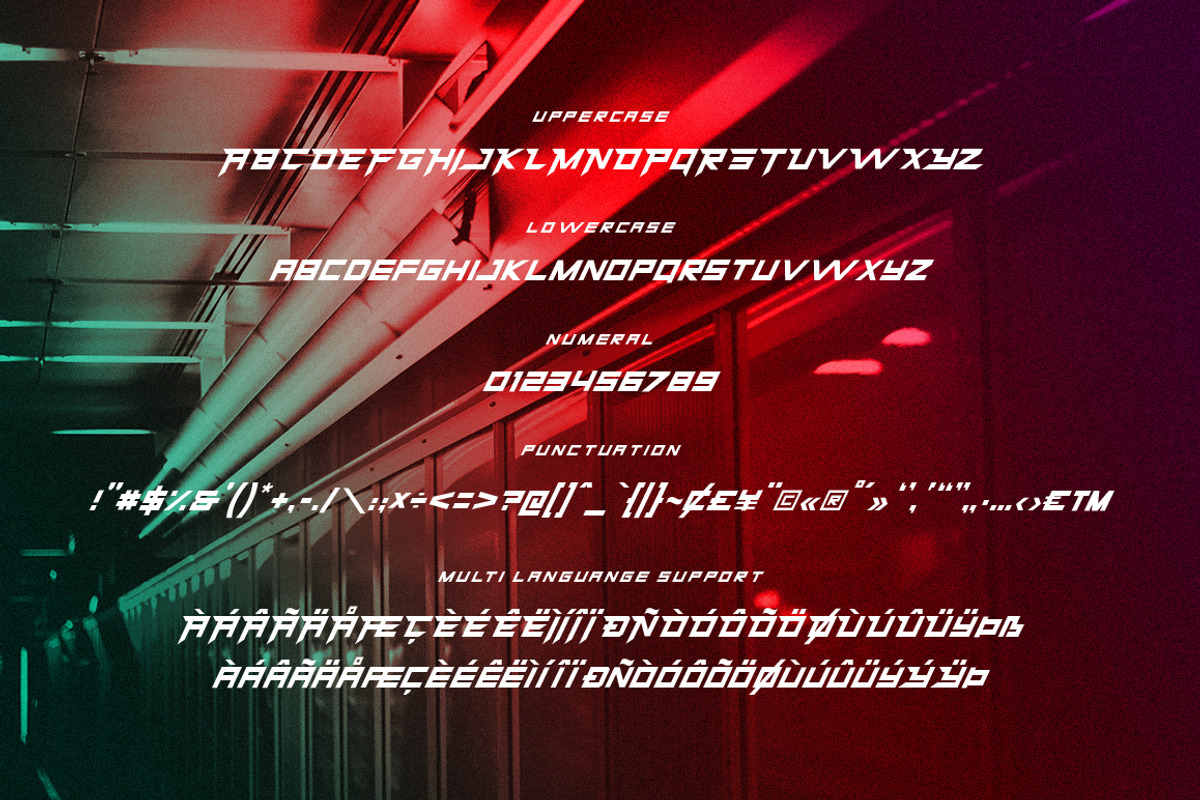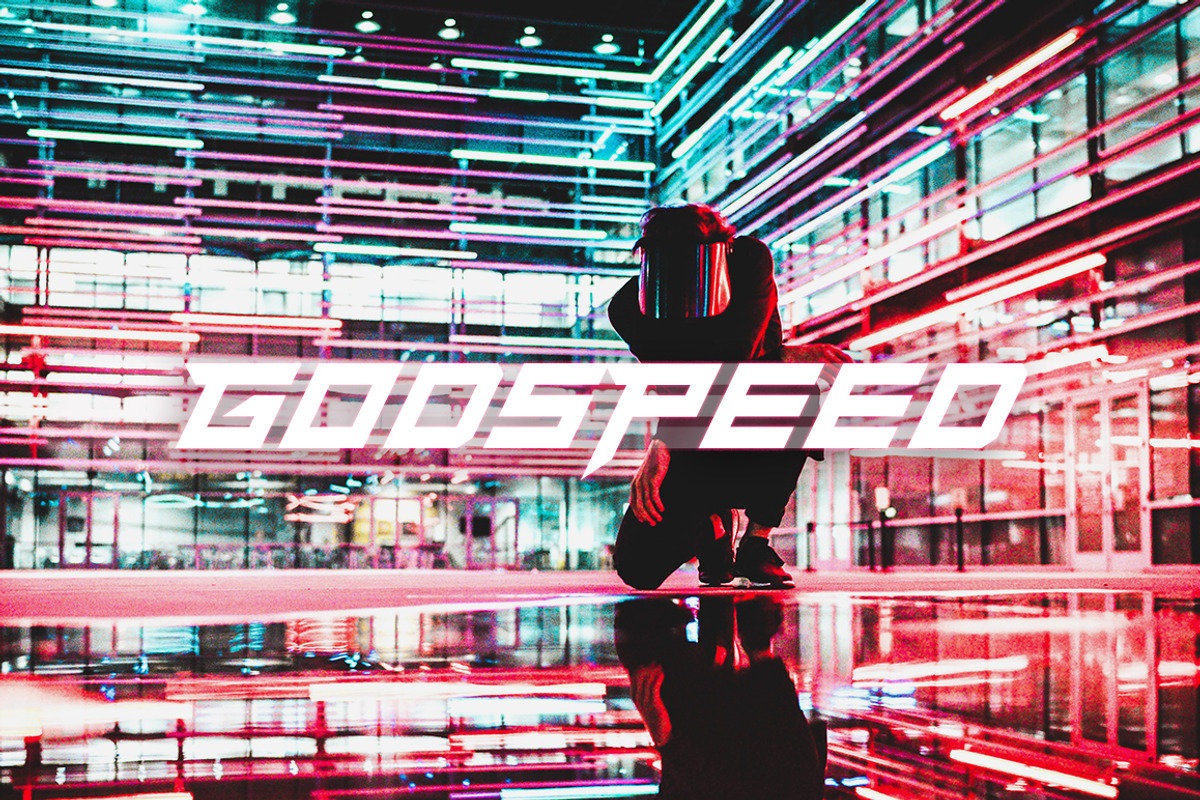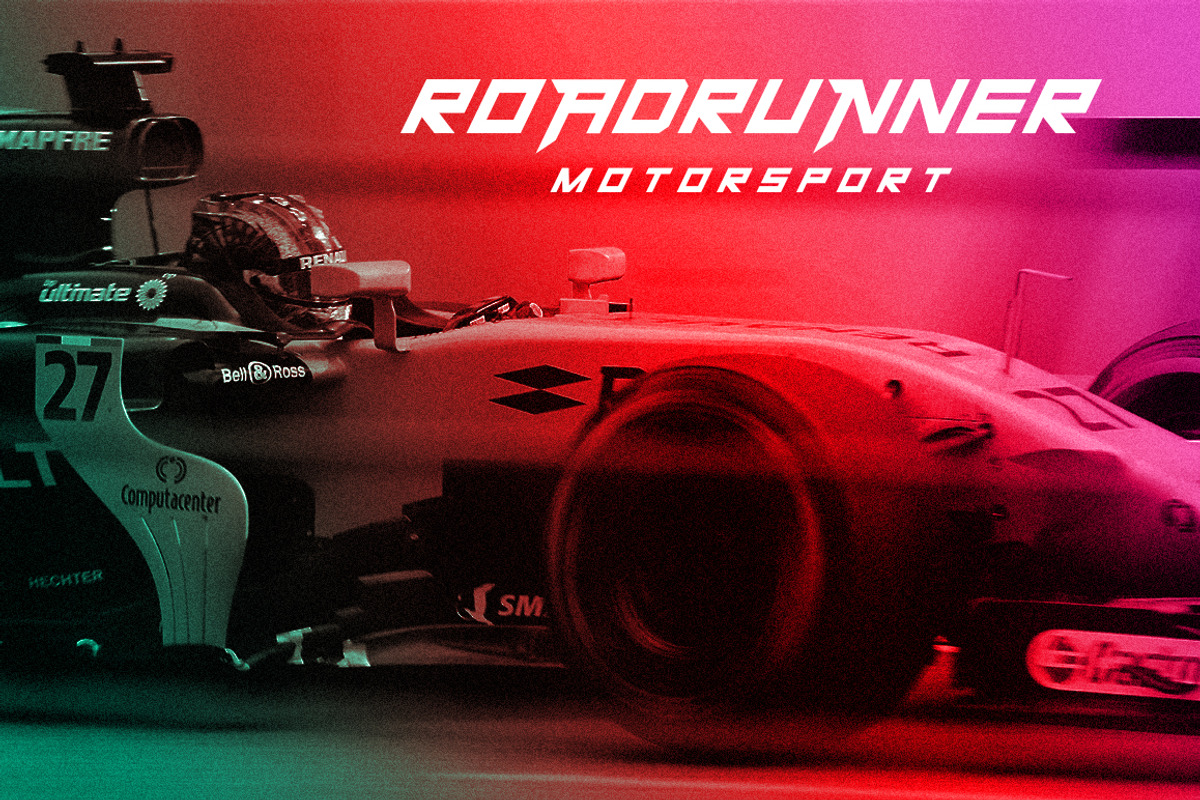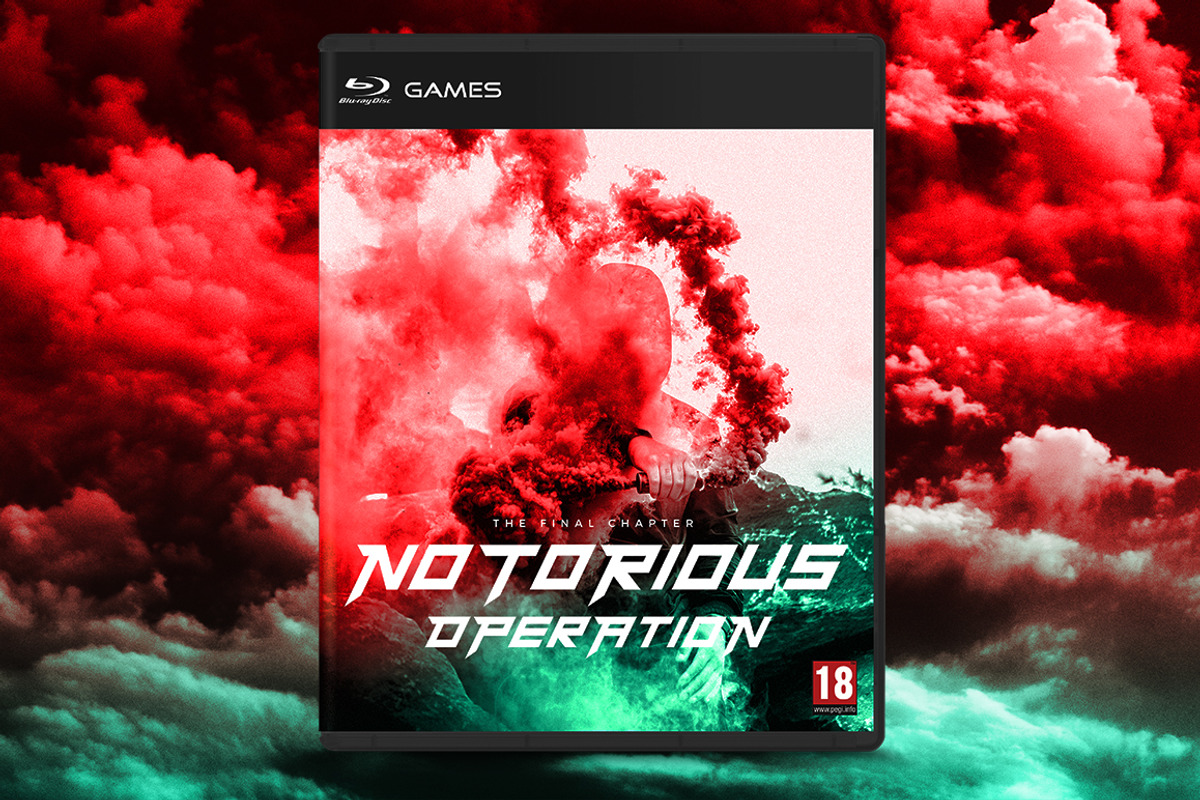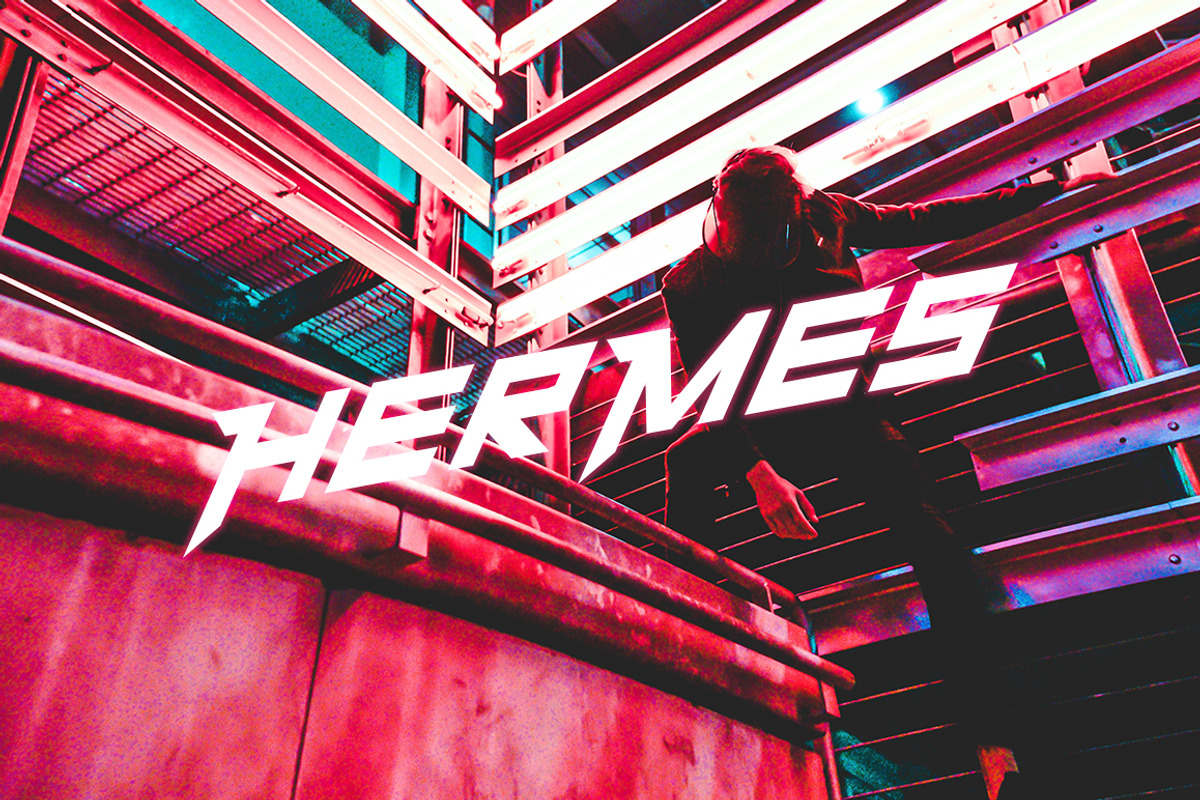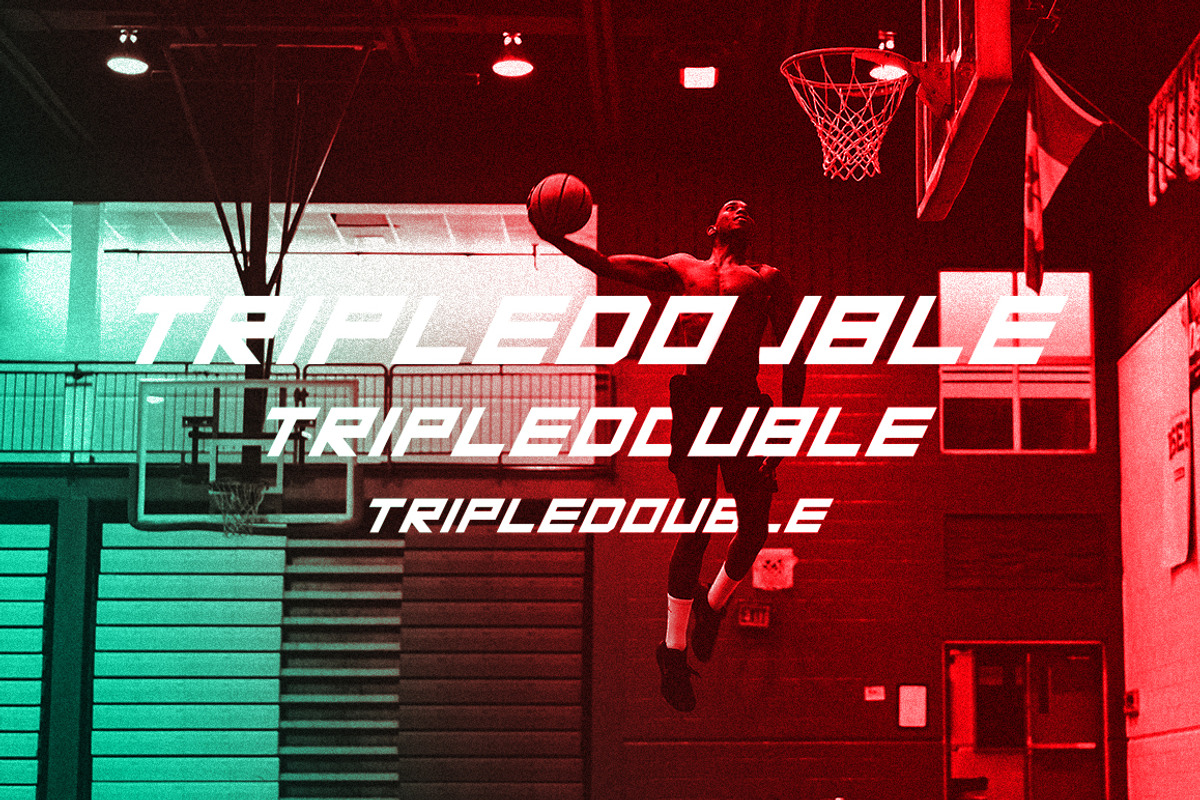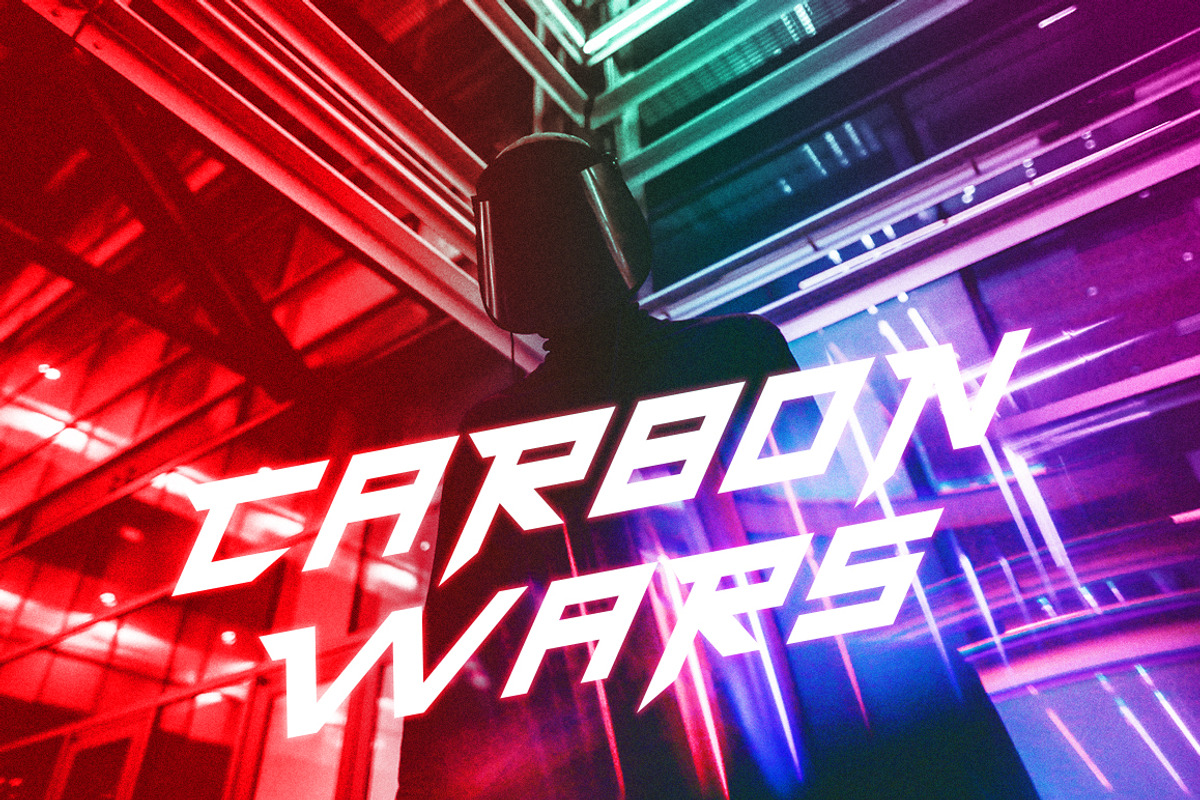
Hermes Font
THE RETRO FUTURISTIC FONT IS HERE
Hermes is one of a kind, it's POWERFUL, FUTURISTIC, and SHARP. It brings you back to that 80s ambiance and also to that futuristic world that you have dreamt of.
Hermes is really fit for retro, futuristic, automotive, and gaming themed designs. Just look how it performs on the preview that I have provided, you will see its capabilities. But it will also work well with other themes.
Tips from the future Combine the uppercase and lowercase to create a great customized typography, but if you don't combine it it will still work as awesome as it is combined. So the power is in your hand!
What makes this font even more POWERFUL!!!